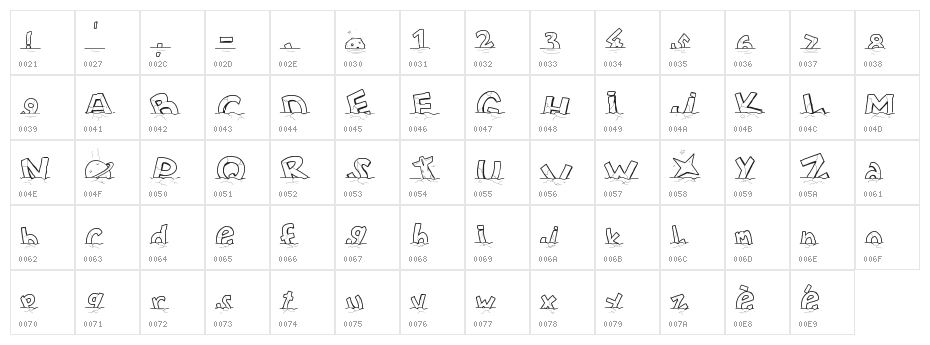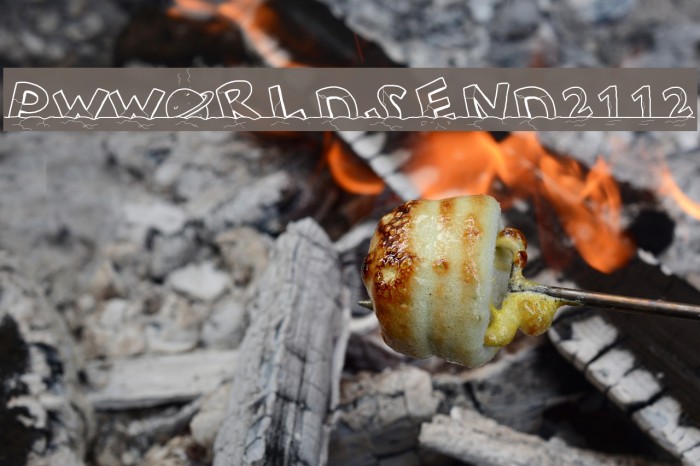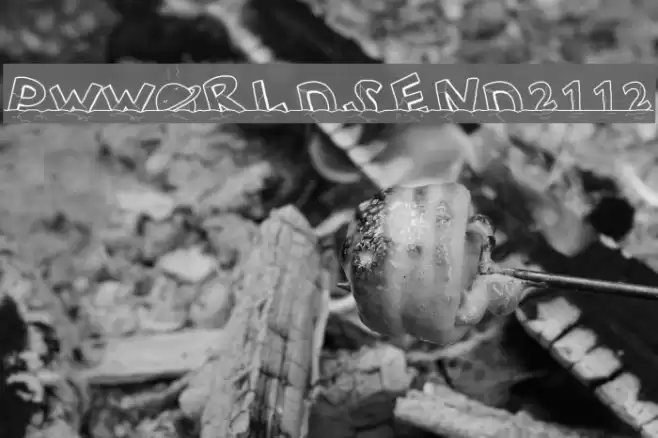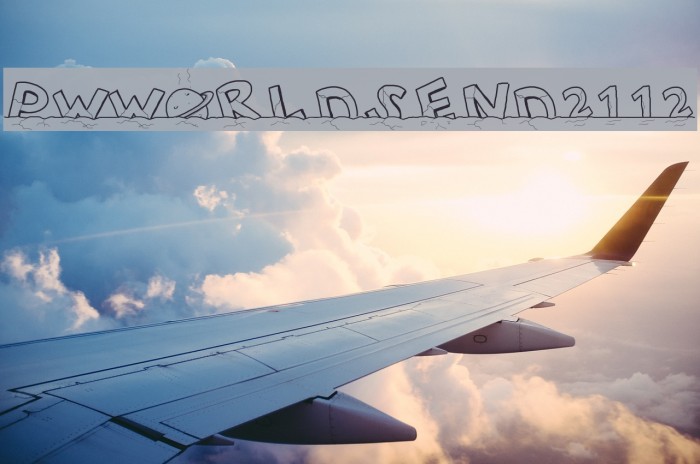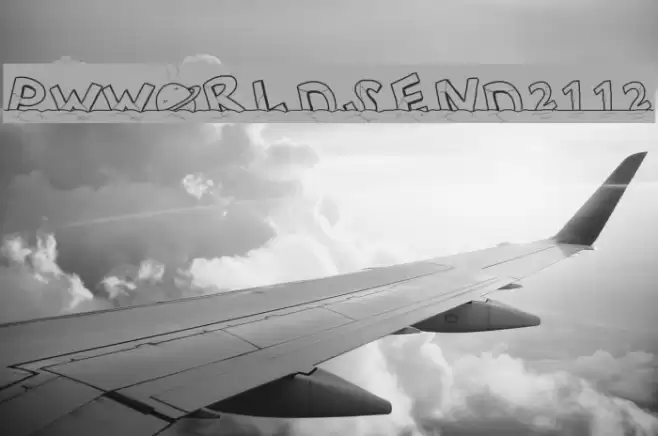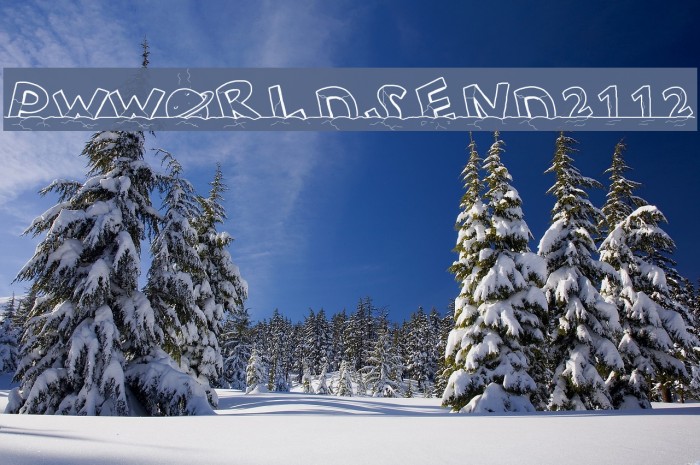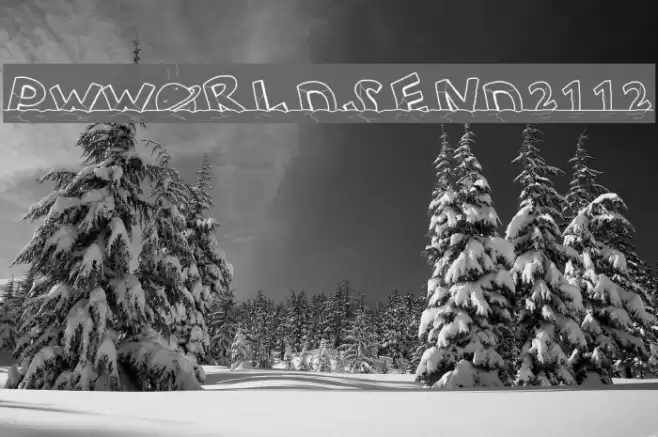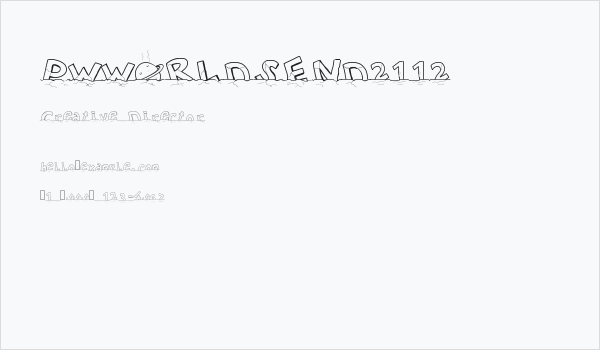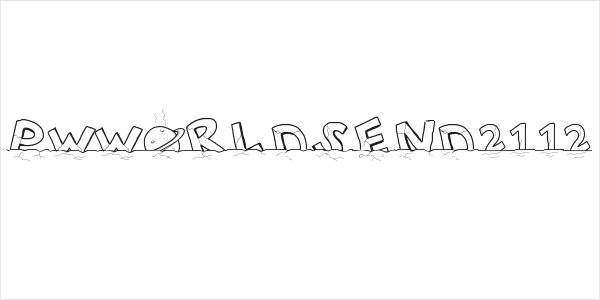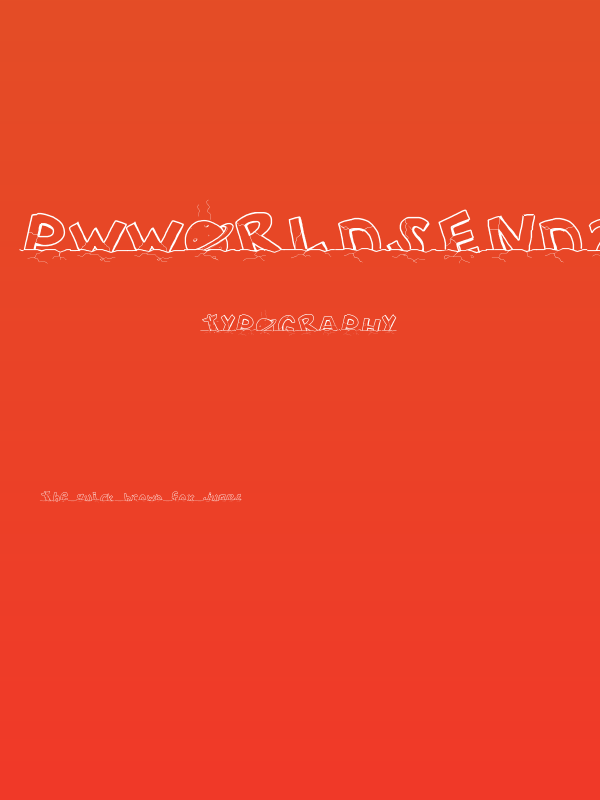
PWWORLDSEND2112 Font
PWWORLDSEND2112 Description
This font features a playful and whimsical design, with each character appearing as if it is emerging from the ground or rubble. The letters are bold and cartoonish, with uneven edges and a hand-drawn aesthetic. The uppercase and lowercase letters maintain a consistent style, with exaggerated curves and angles that give the font a dynamic and energetic feel. Numbers and special characters follow the same theme, adding to the overall cohesive look. This font is perfect for projects that require a fun and informal touch, such as children's books, comic strips, or playful branding.
| Overall Style | Playful, Whimsical, Cartoonish |
| Proposed Projects | Ideal for children's books, comic strips, playful branding, and informal designs. |